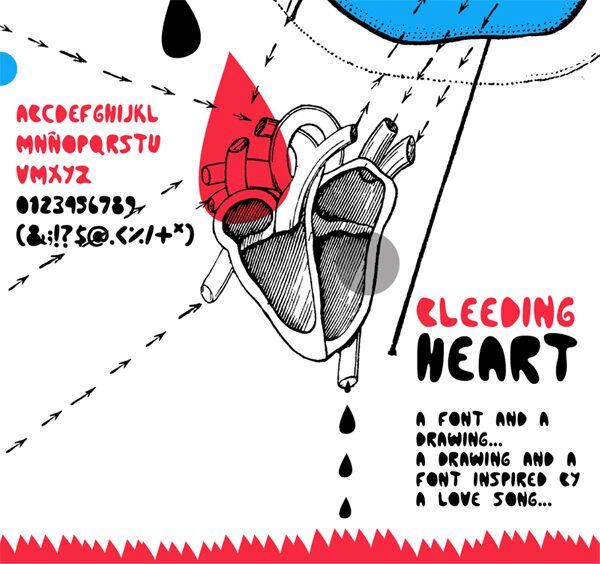
BleedingHeart by Jonathan Vivanco is a free groovy display font with dense, rounded letters and an unmistakably hand-shaped silhouette. Its swollen strokes bend into soft hooks and broad curves, with uneven edges that keep the forms from looking mechanically smooth. The lettering feels playful but slightly strange, closer to poured paint than tidy bubble type.
A candy brand or offbeat toy shop could use its blobby forms across packaging, signage, and merchandise, where the lettering can become part of the product imagery. It also suits psychedelic music posters and surreal cartoon projects.